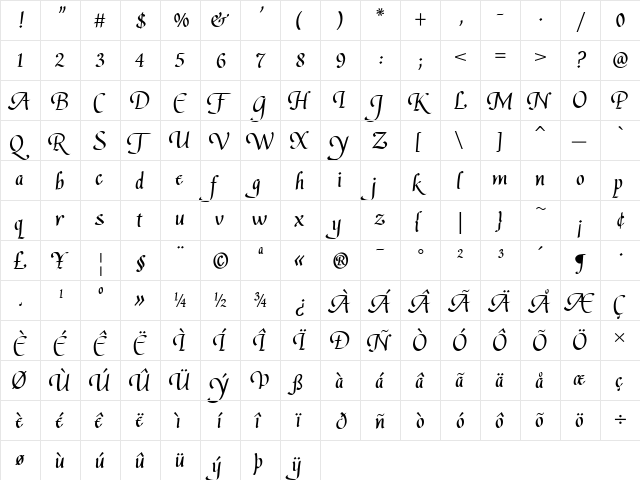
LeeAnn Regular Regular
| Foundry | TYPADELIC FONTS |
| Designer | Ronna Penner |
Design Context for LeeAnn Regular Typeface
LeeAnn Regular is a composed and adaptable typeface that performs quietly and consistently across a wide range of design contexts.